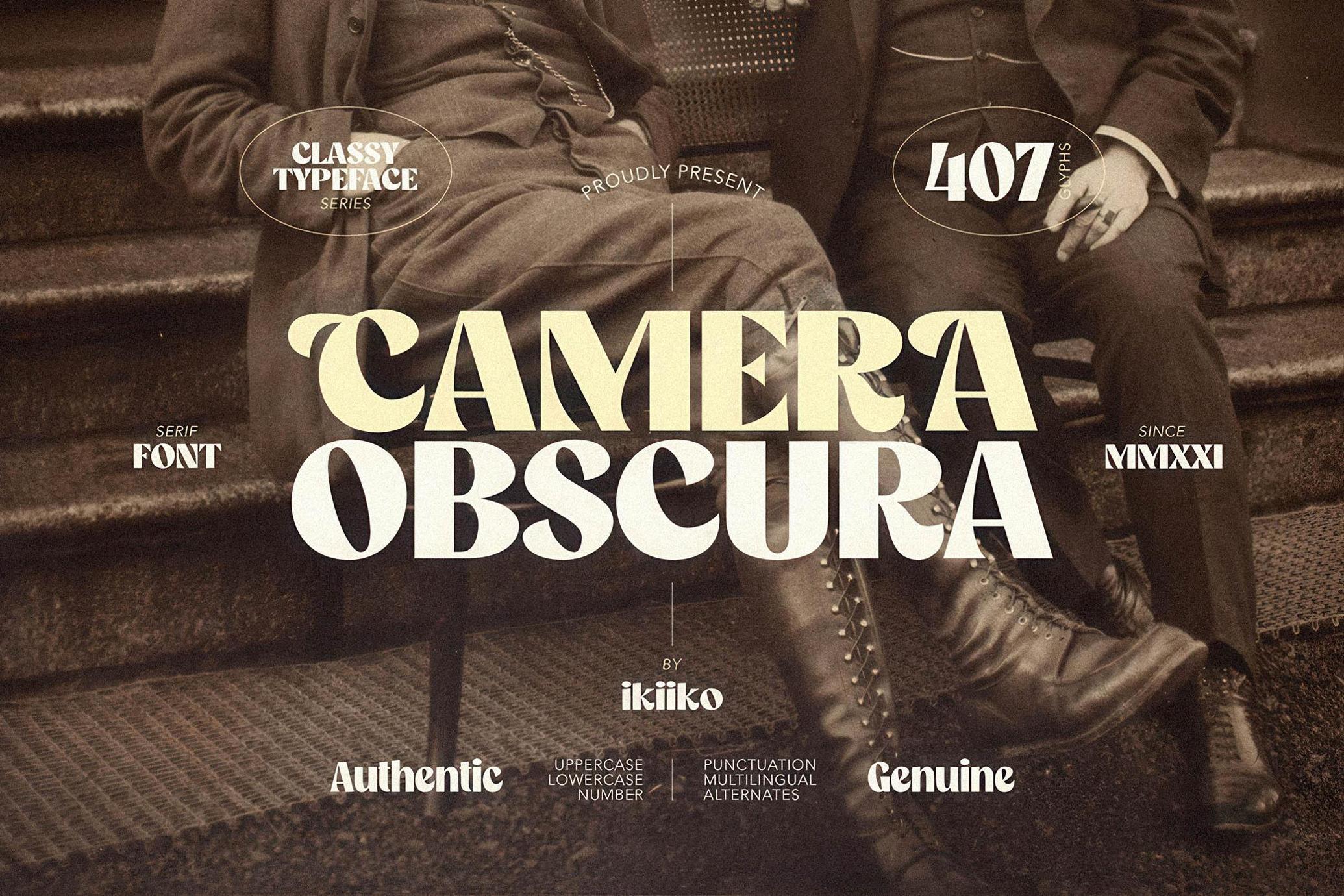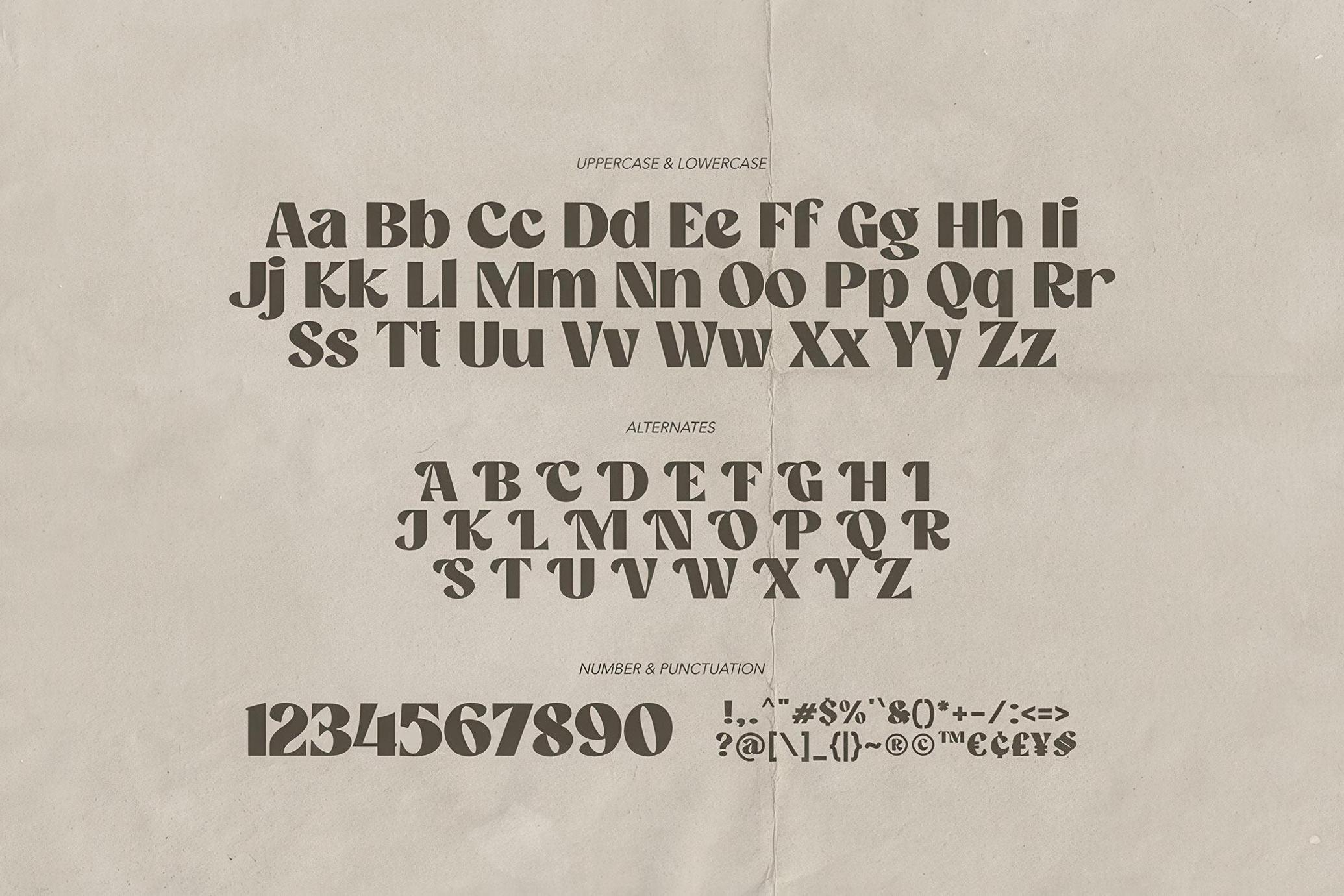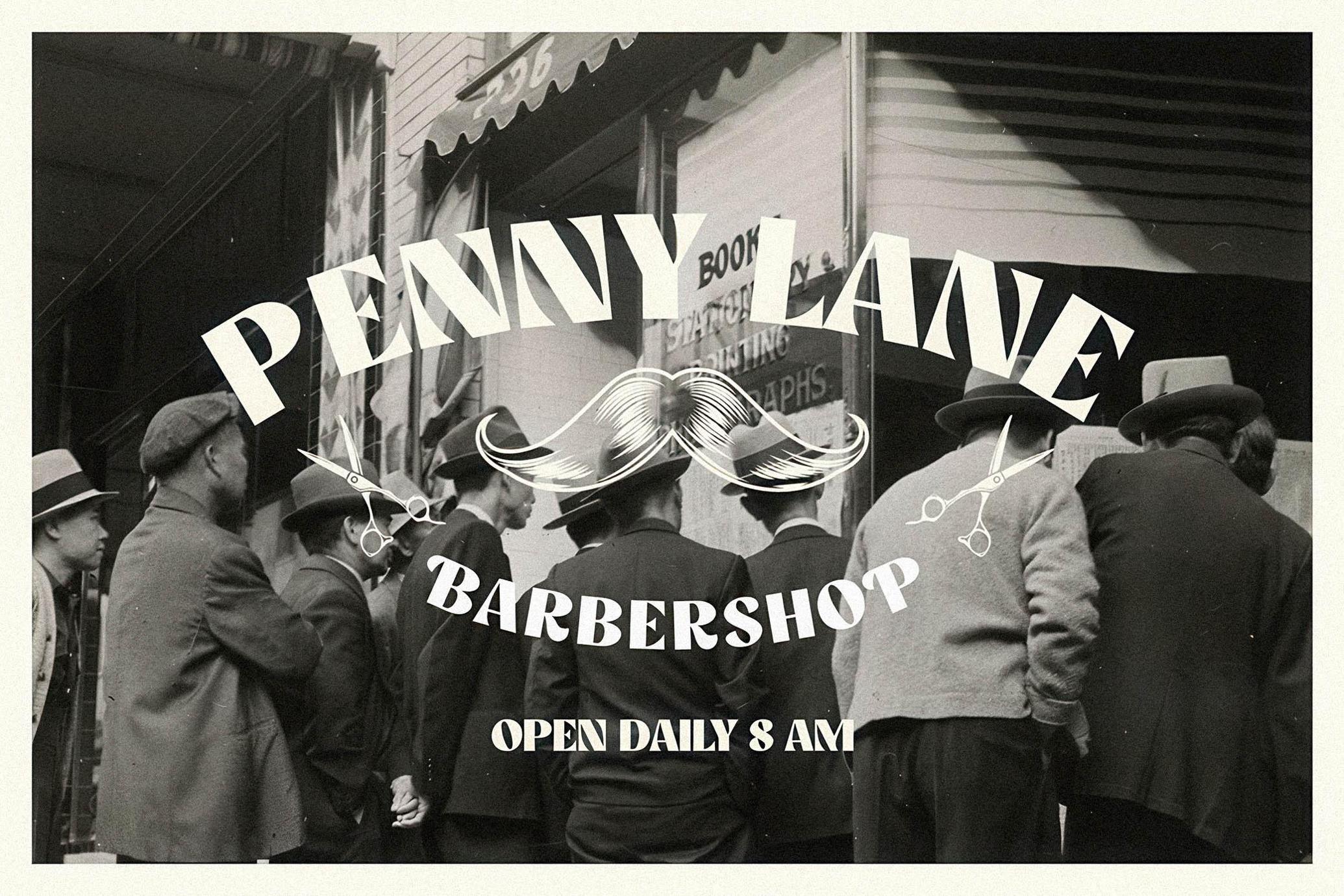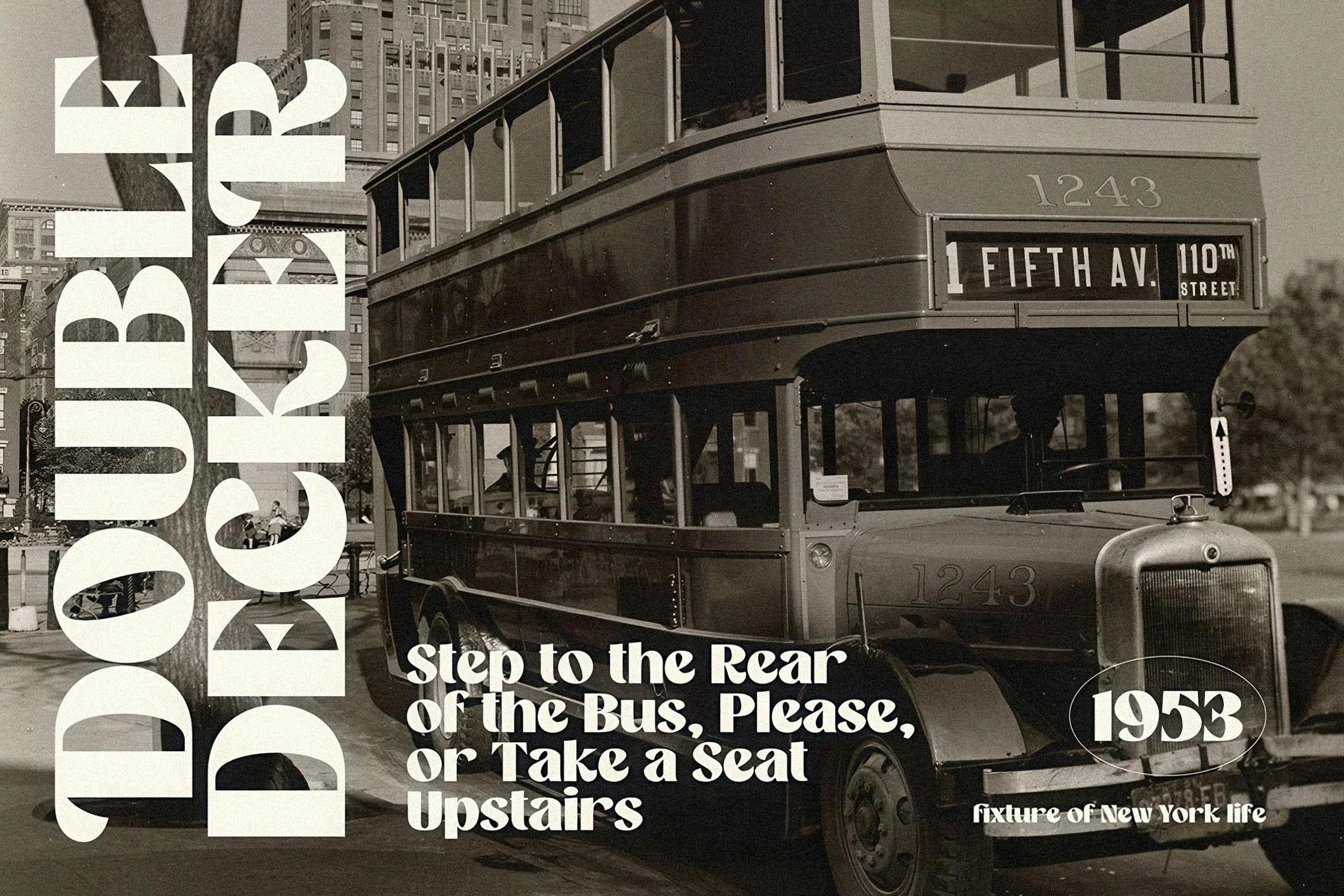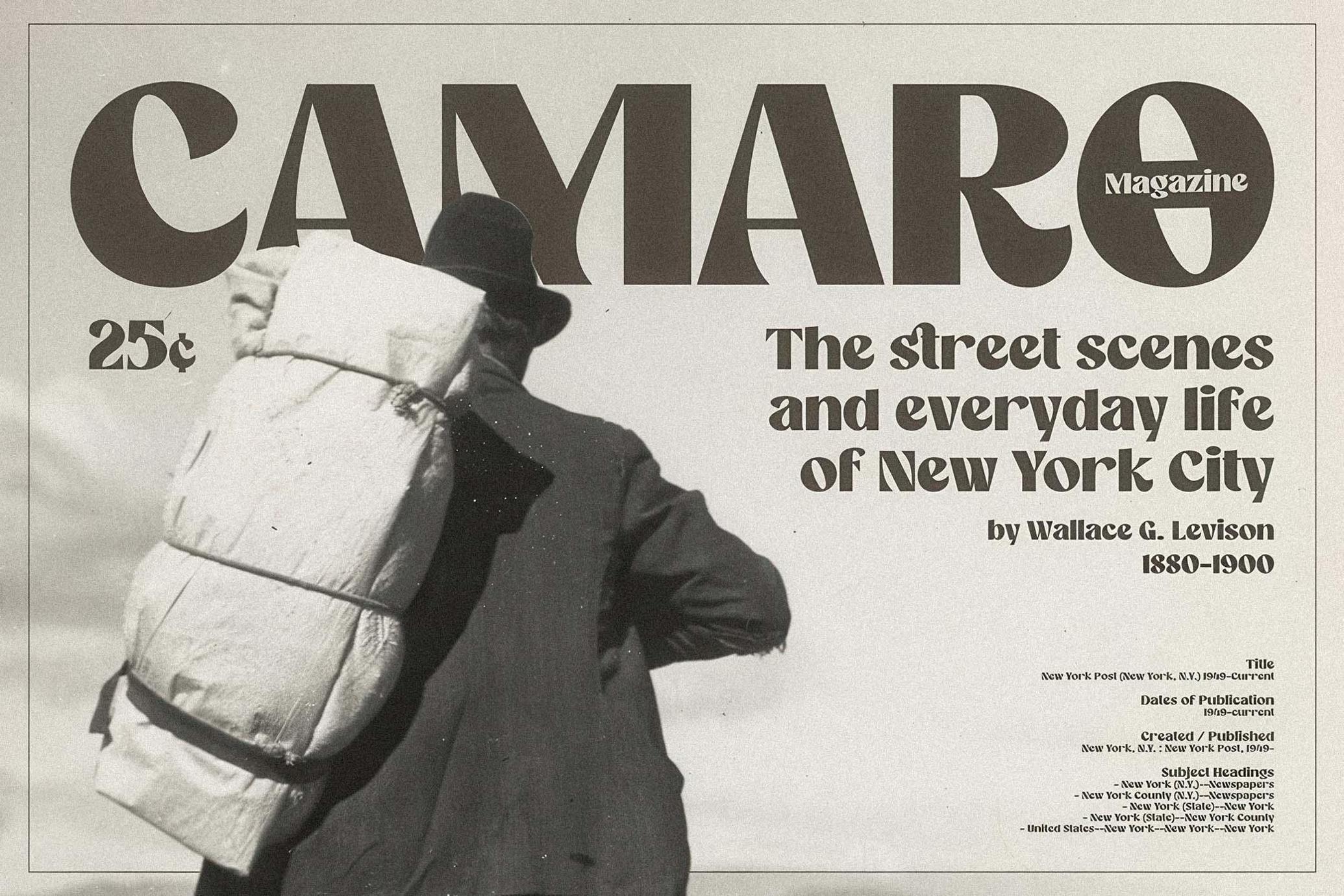
Camera Obscura - Classy Font
Camera Obscura was inspired by typography from a vintage New York City newspaper. In particular, this typeface is designed to give a formal yet old style look Camera Obscura has a serif typeface with bold to light contrast. A style commonly used in magazines and mass media in his era. This typeface is perfect for an formal layout, newspaper, magazine cover, and also good for vintage product, food & beverages, quotes, or simply as a stylish text overlay to any background image.
• Number & Punctuation
• Alternates